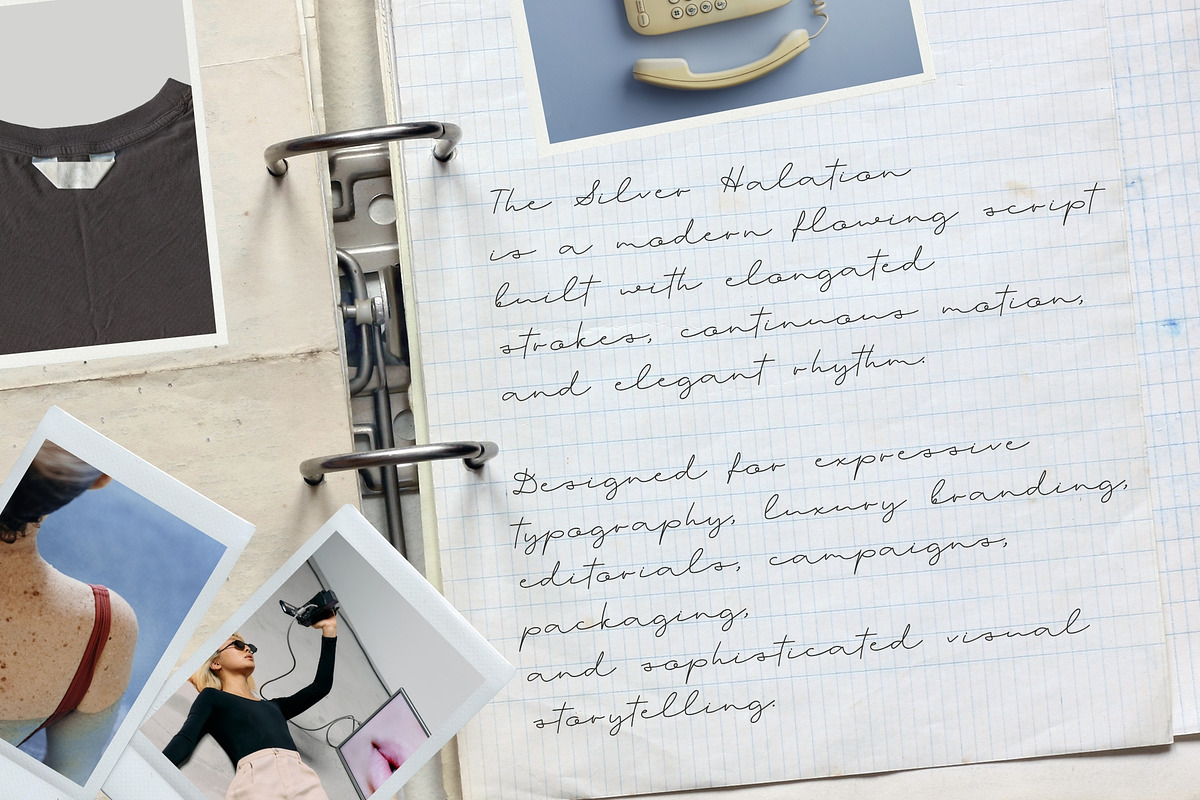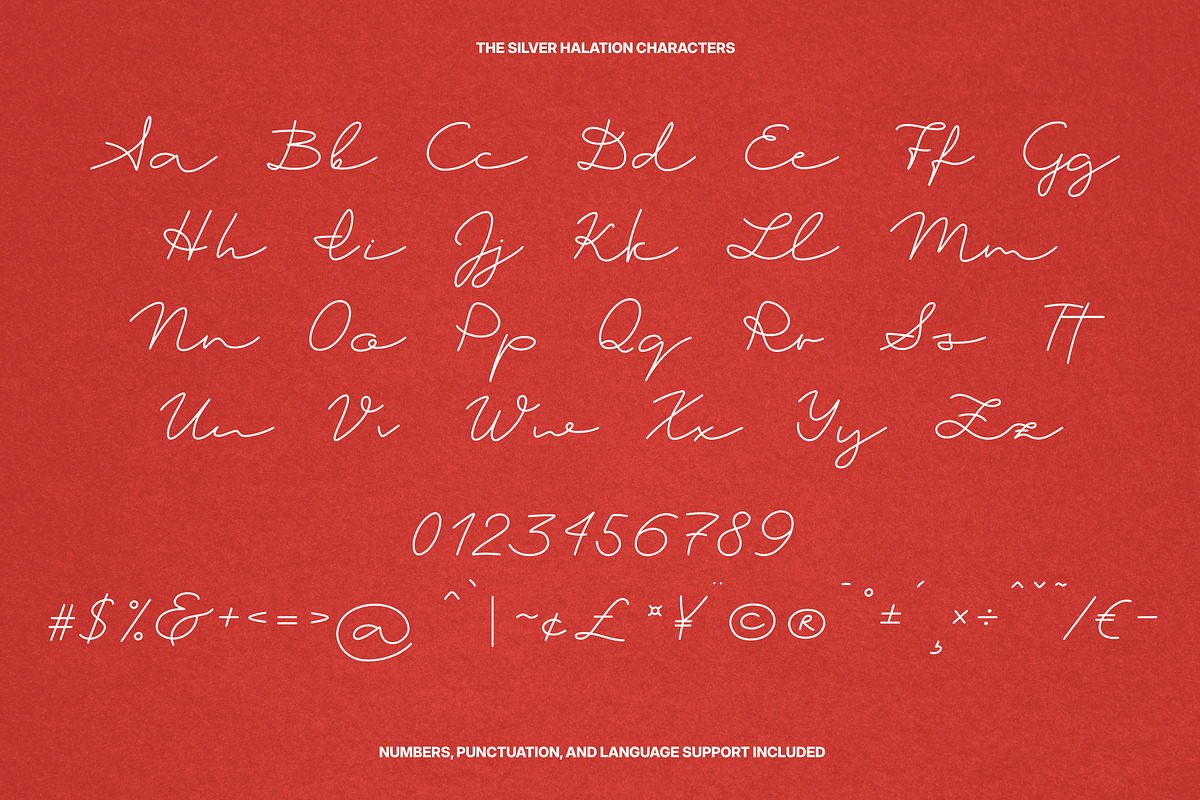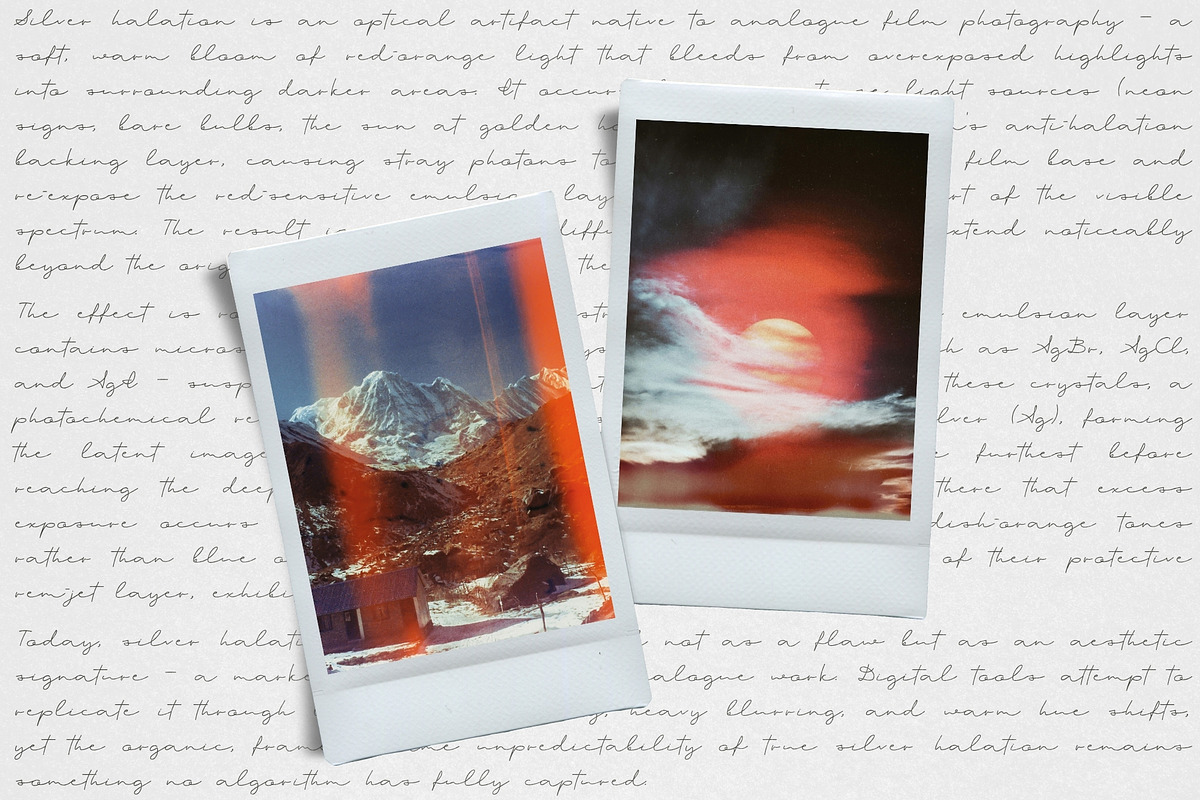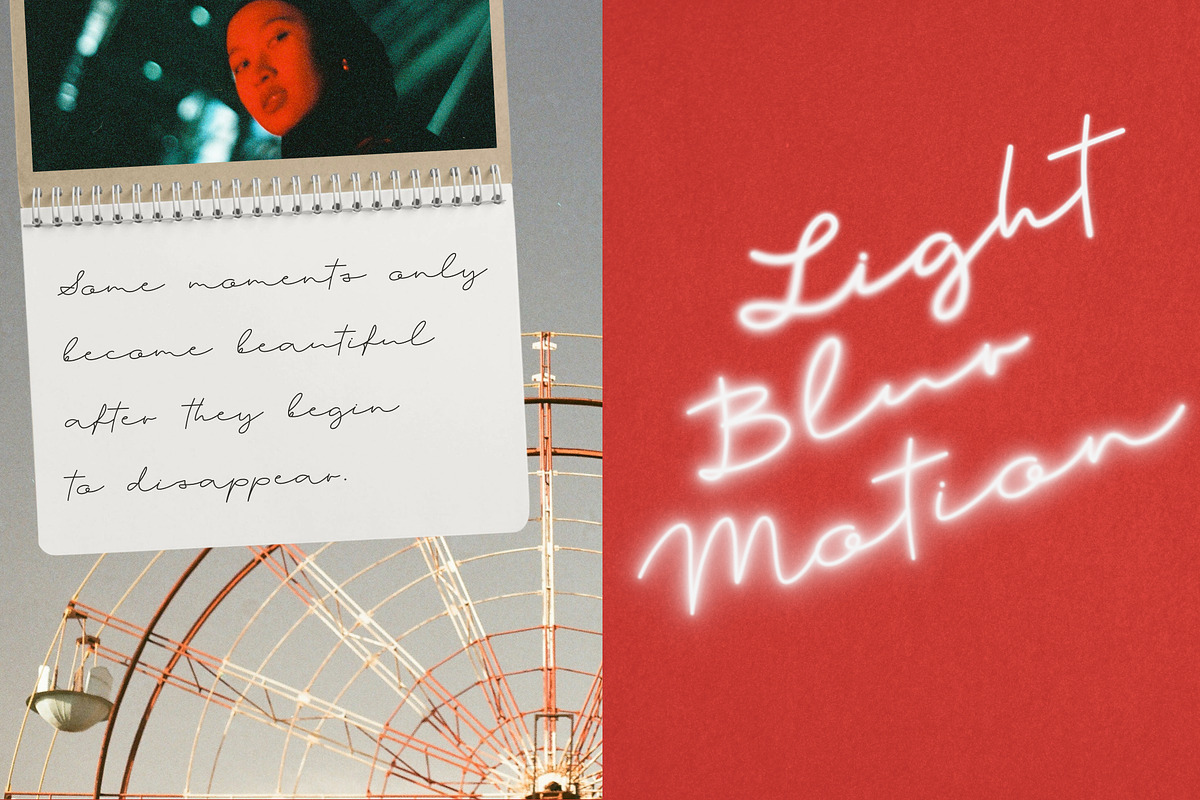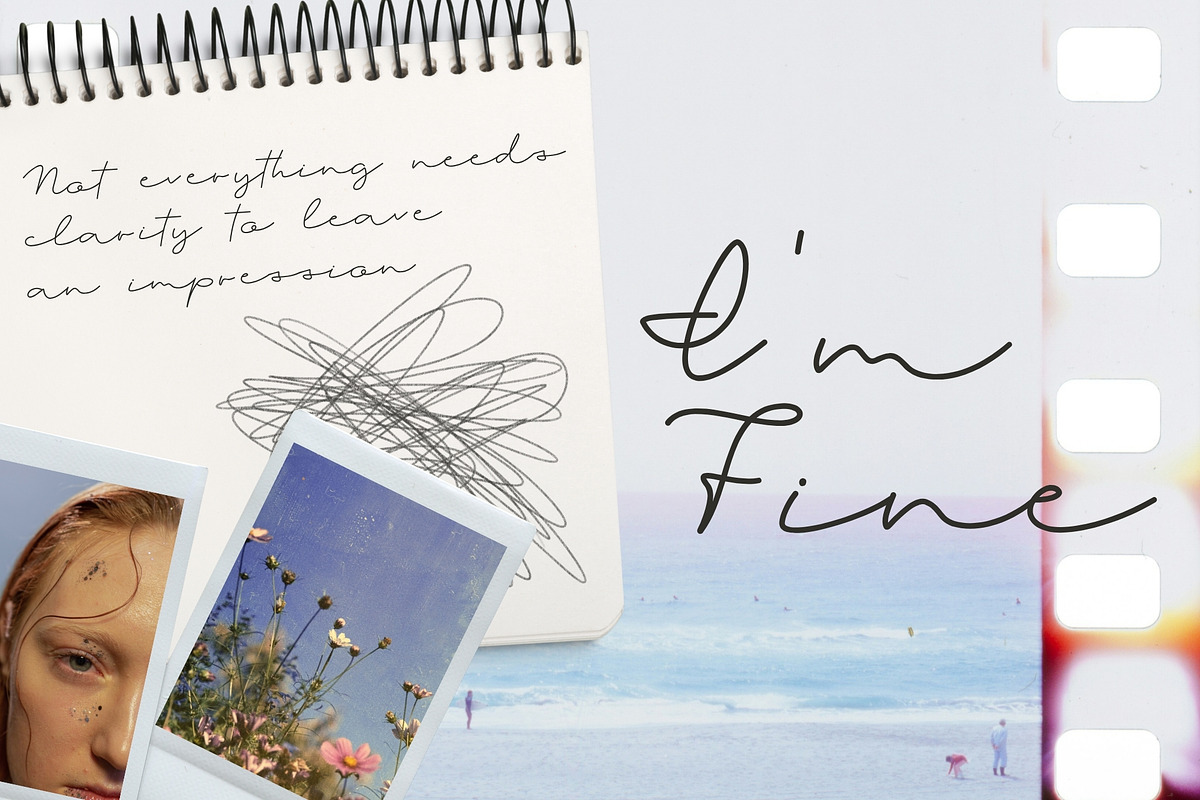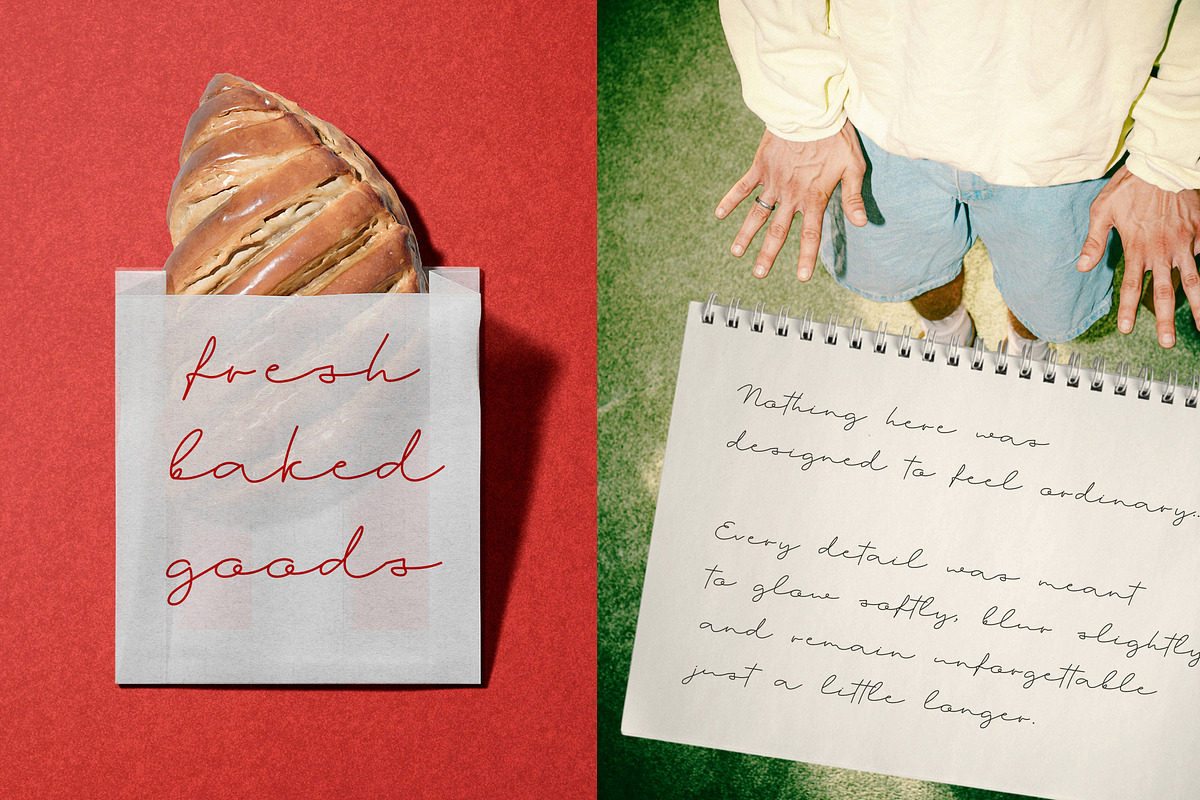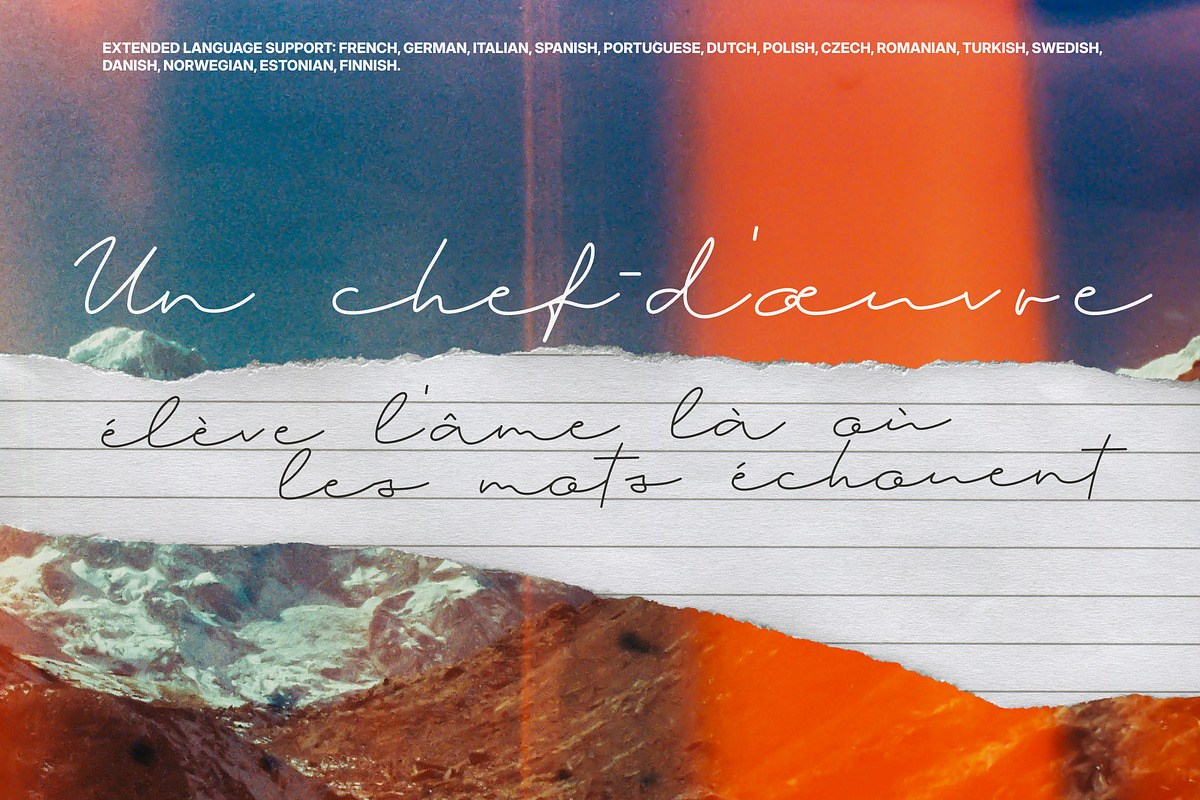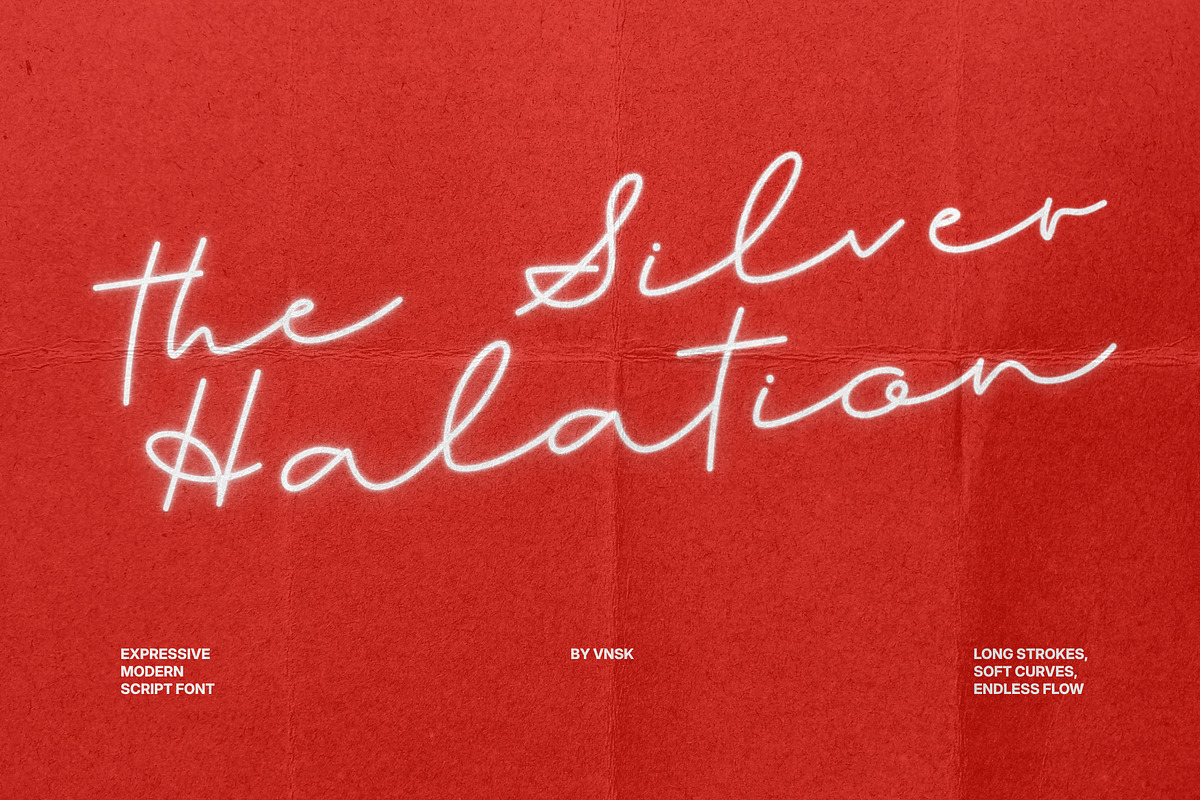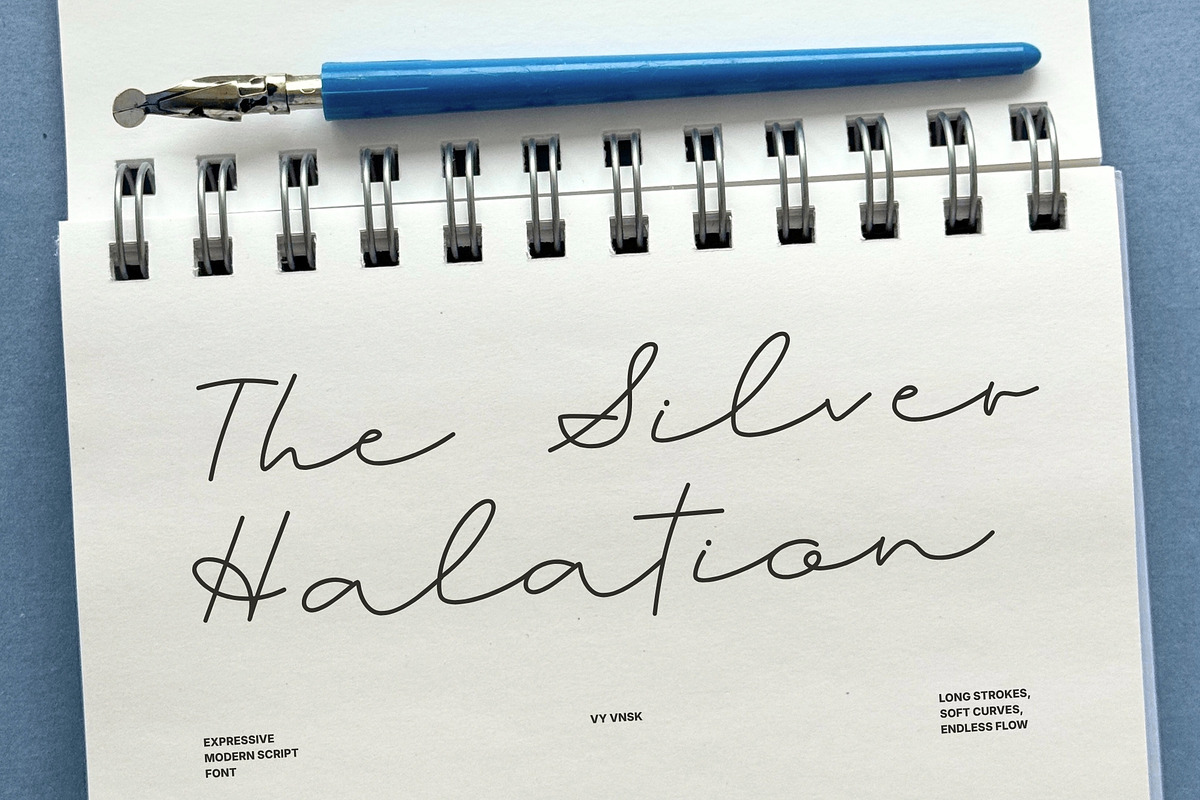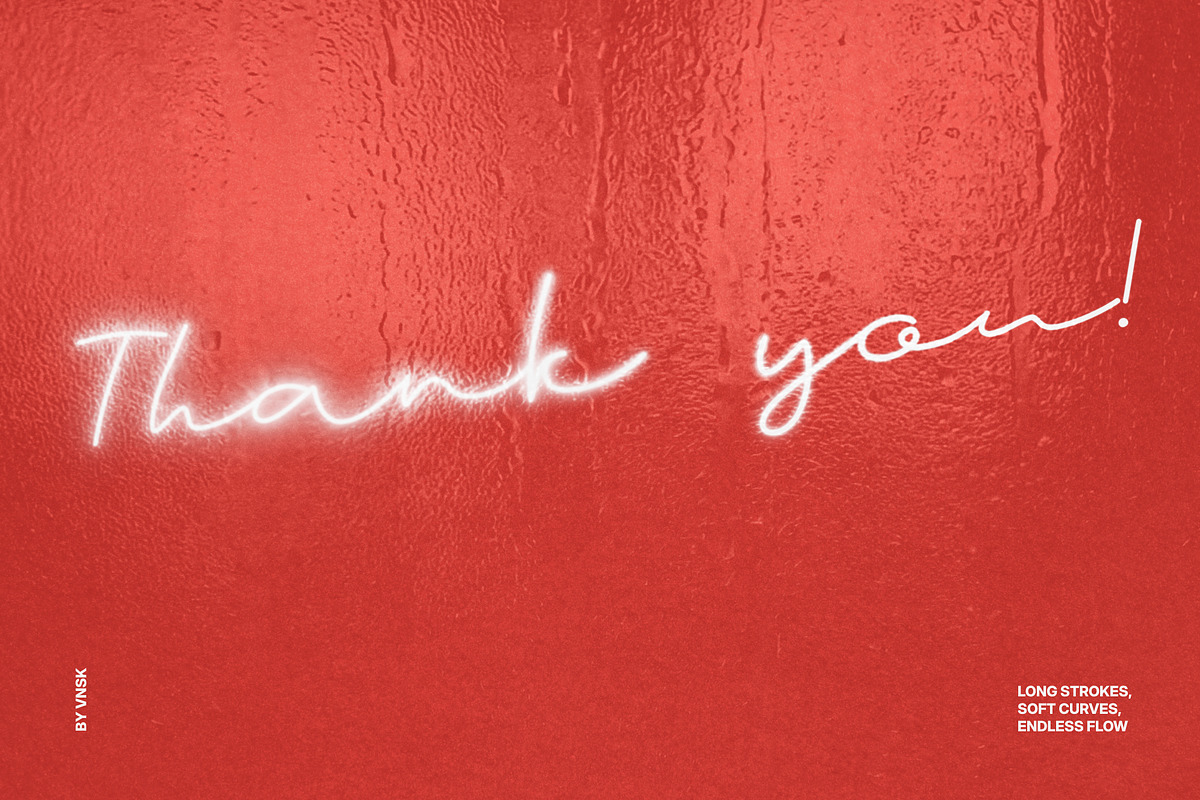
The Silver Halation Modern Script
The Silver Halation. Modern Flowing Script
The Silver Halation is an expressive modern script font. Built with elongated strokes and connected letterforms, it transforms simple words into elegant statement typography.
Designed with a fashion-forward aesthetic, this luxury script balances softness and sophistication with bold visual rhythm. Its stretched lowercase forms and seamless connections create a liquid, flowing texture perfect for editorial layouts, branding, beauty campaigns, album covers, packaging, social media, and contemporary visual identities.
Uppercase & lowercase letters